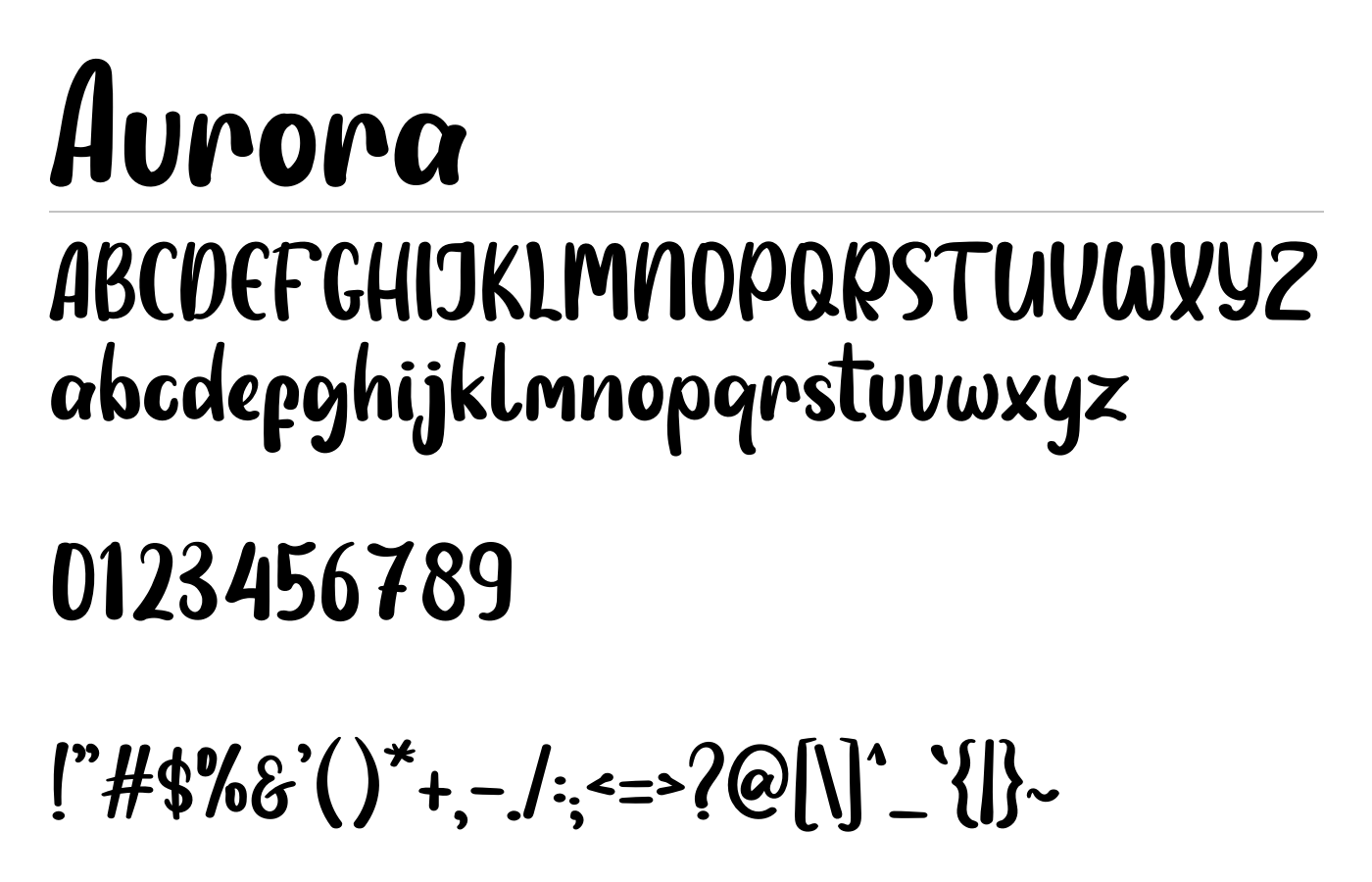
Aurora is a playful and friendly handwritten sans serif font with smooth, rounded strokes and a casual charm. Its upright, well-spaced letterforms and consistent weight make it perfect for inviting headlines, branding, and creative projects that need a warm, approachable feel. This font works well where a personal touch and clear readability are desired, such as in invitations, packaging, and social media graphics.
Aurora Font